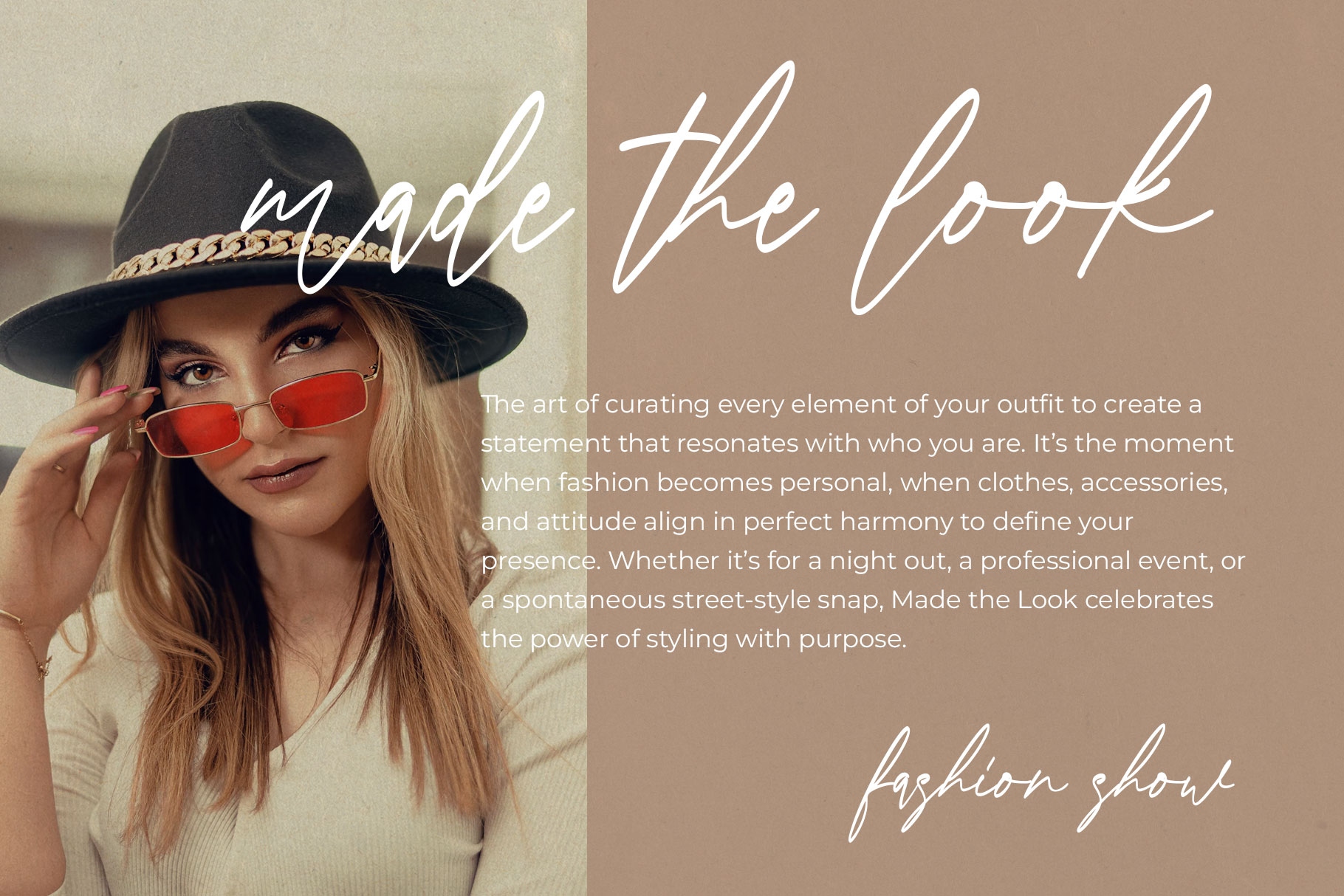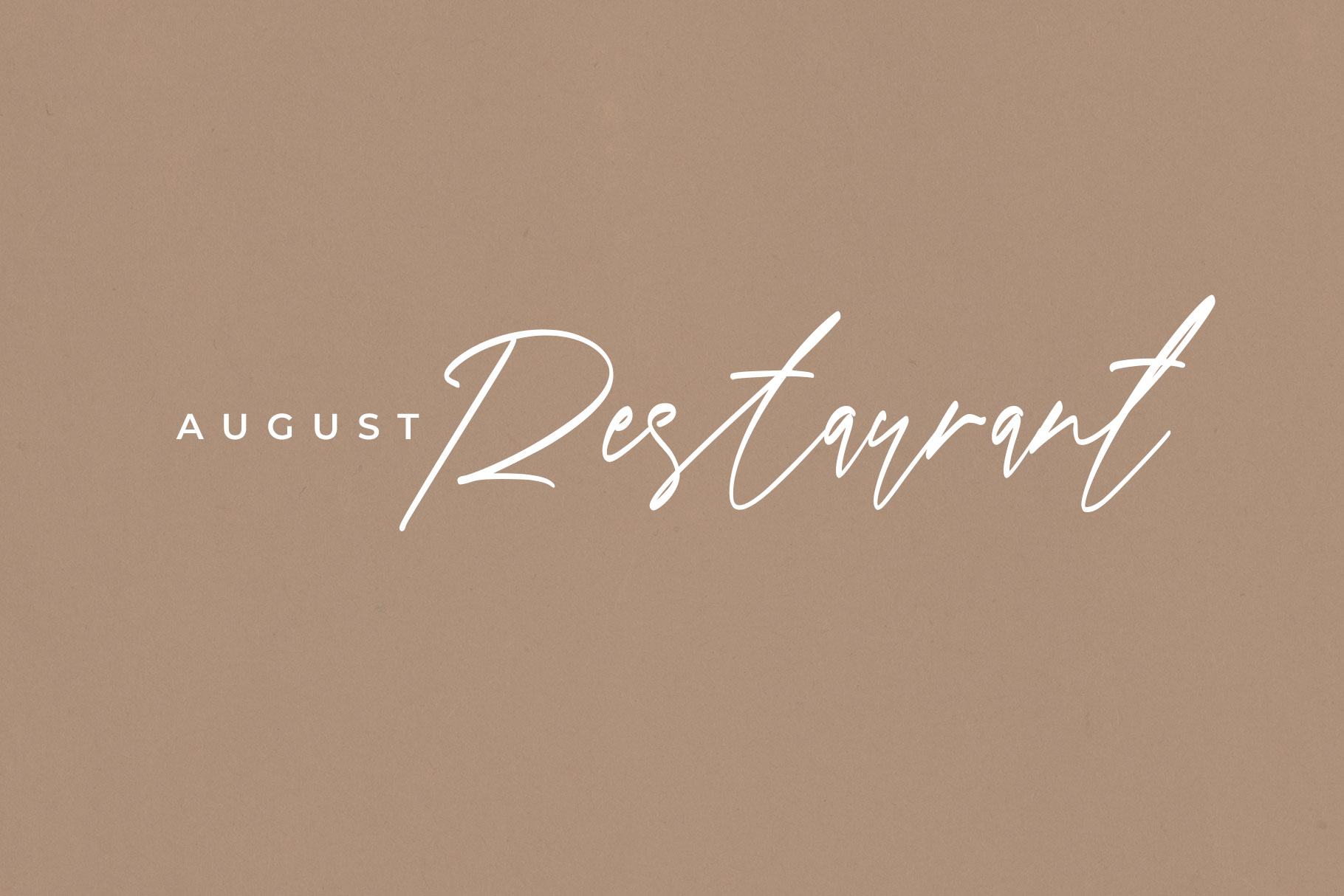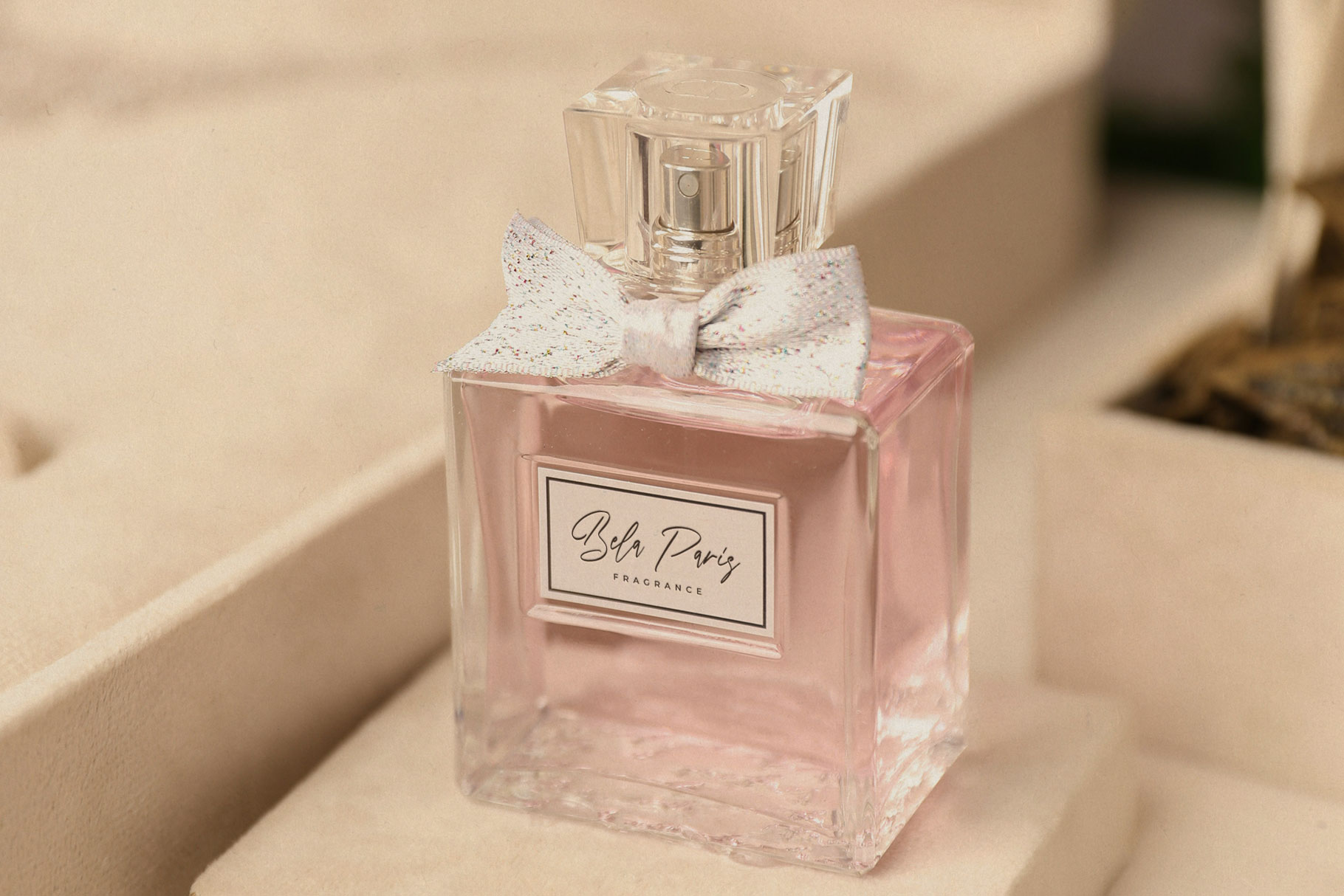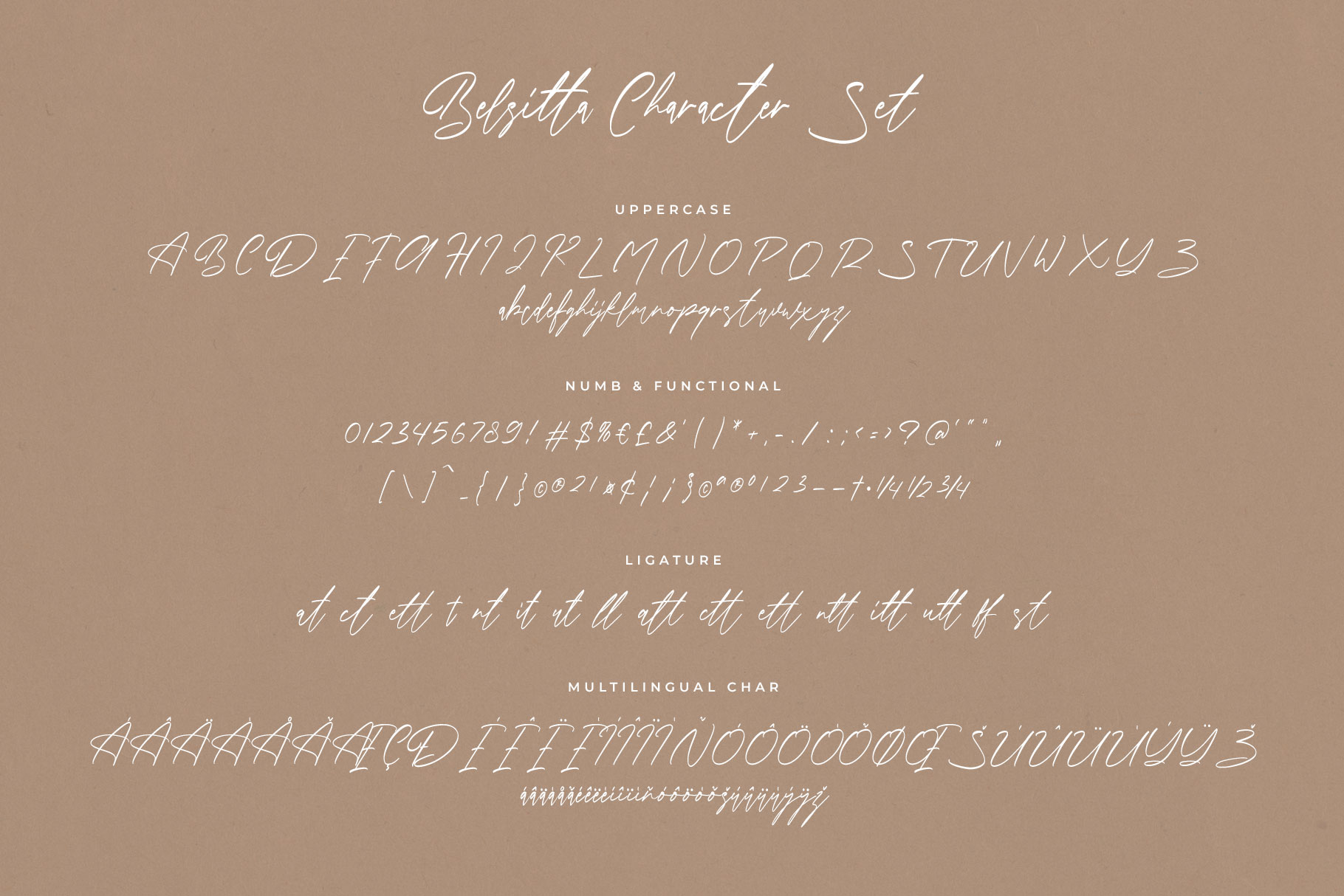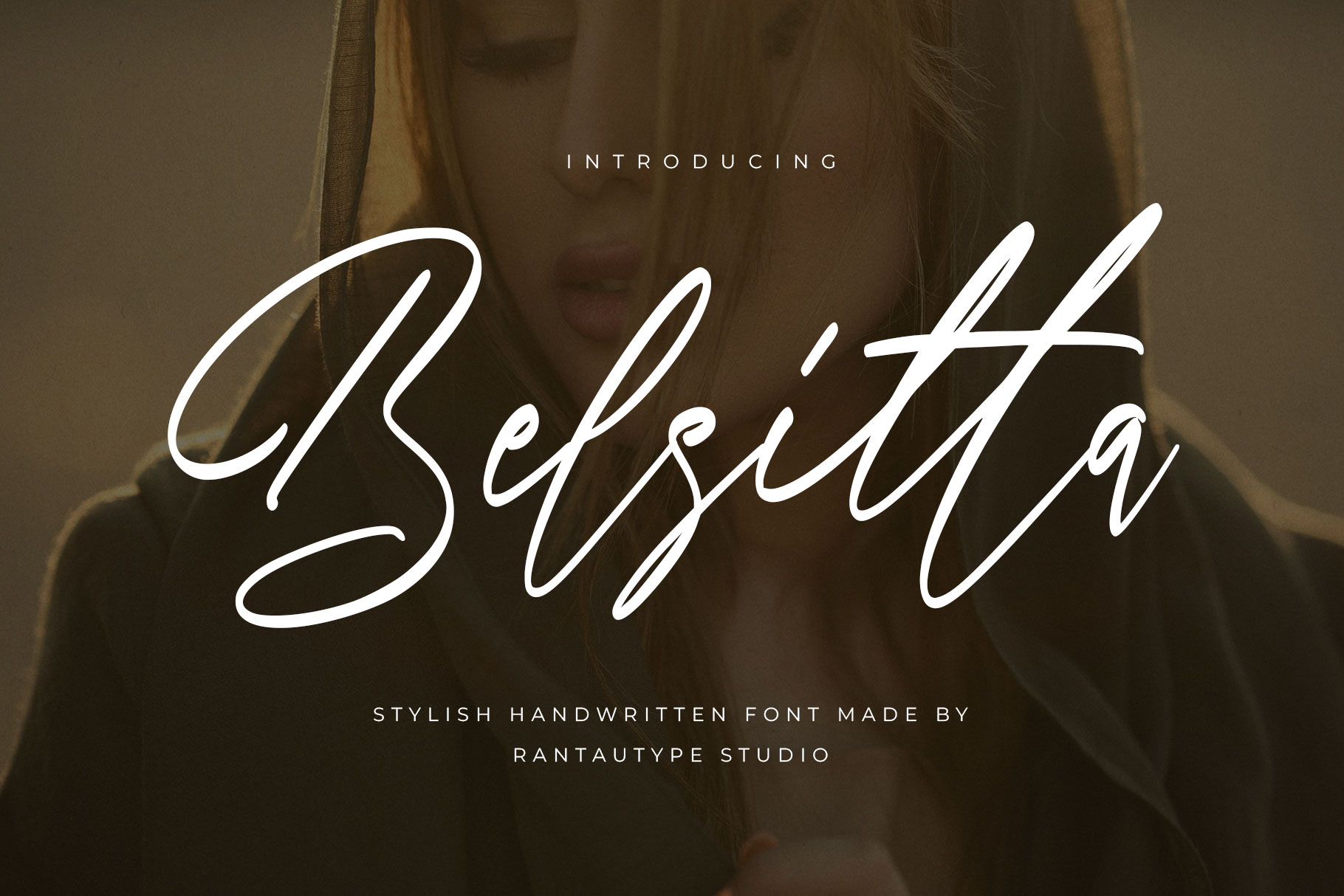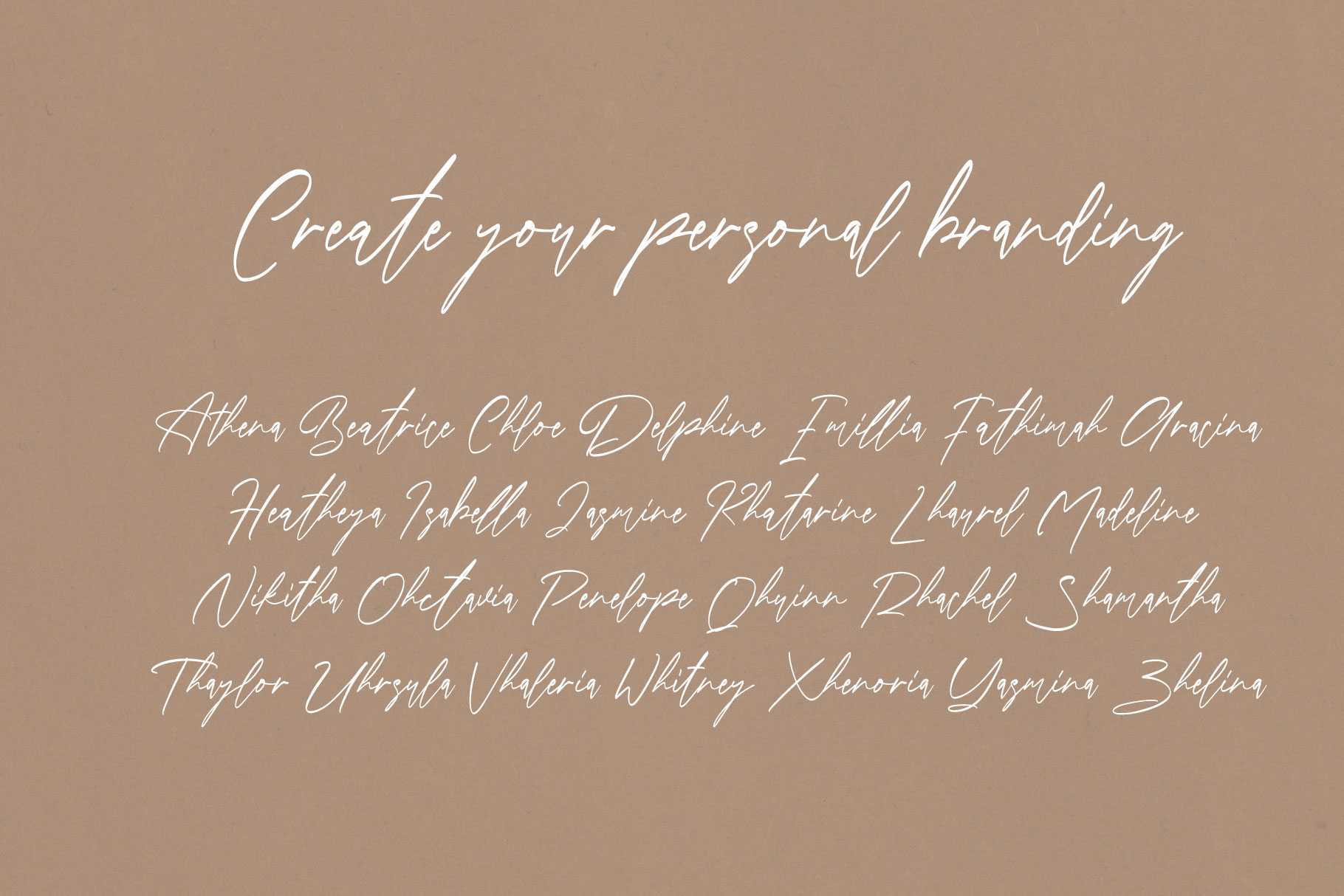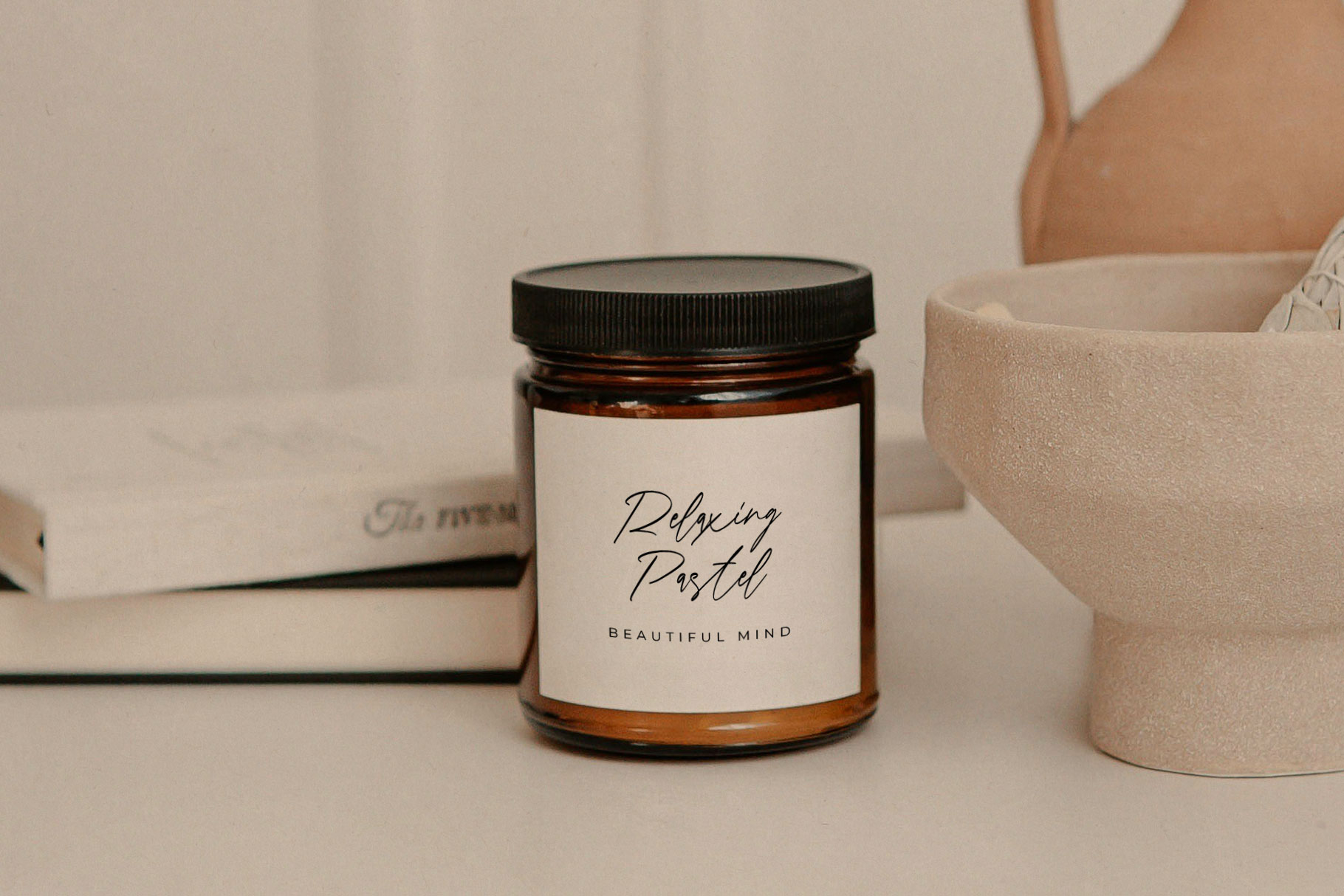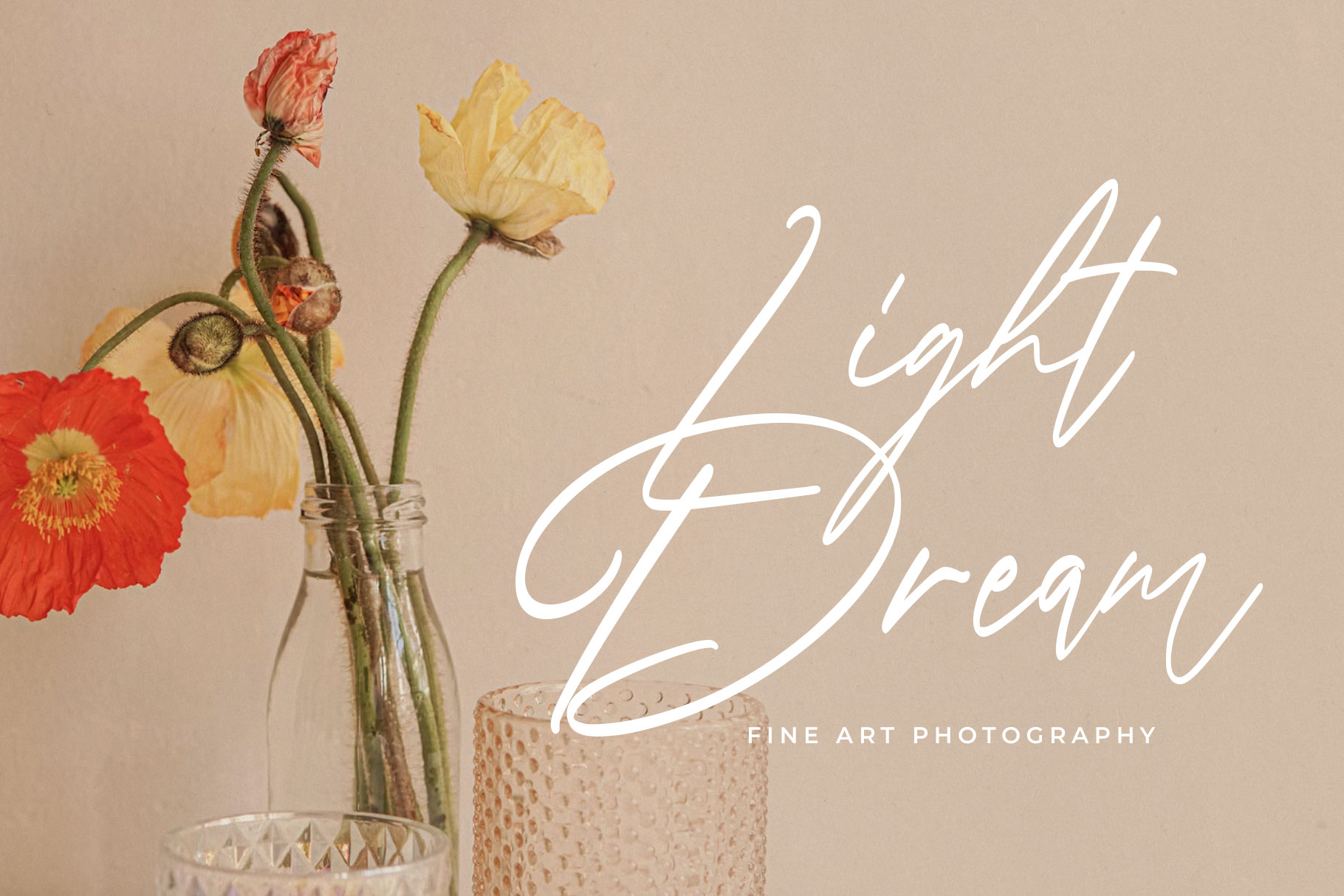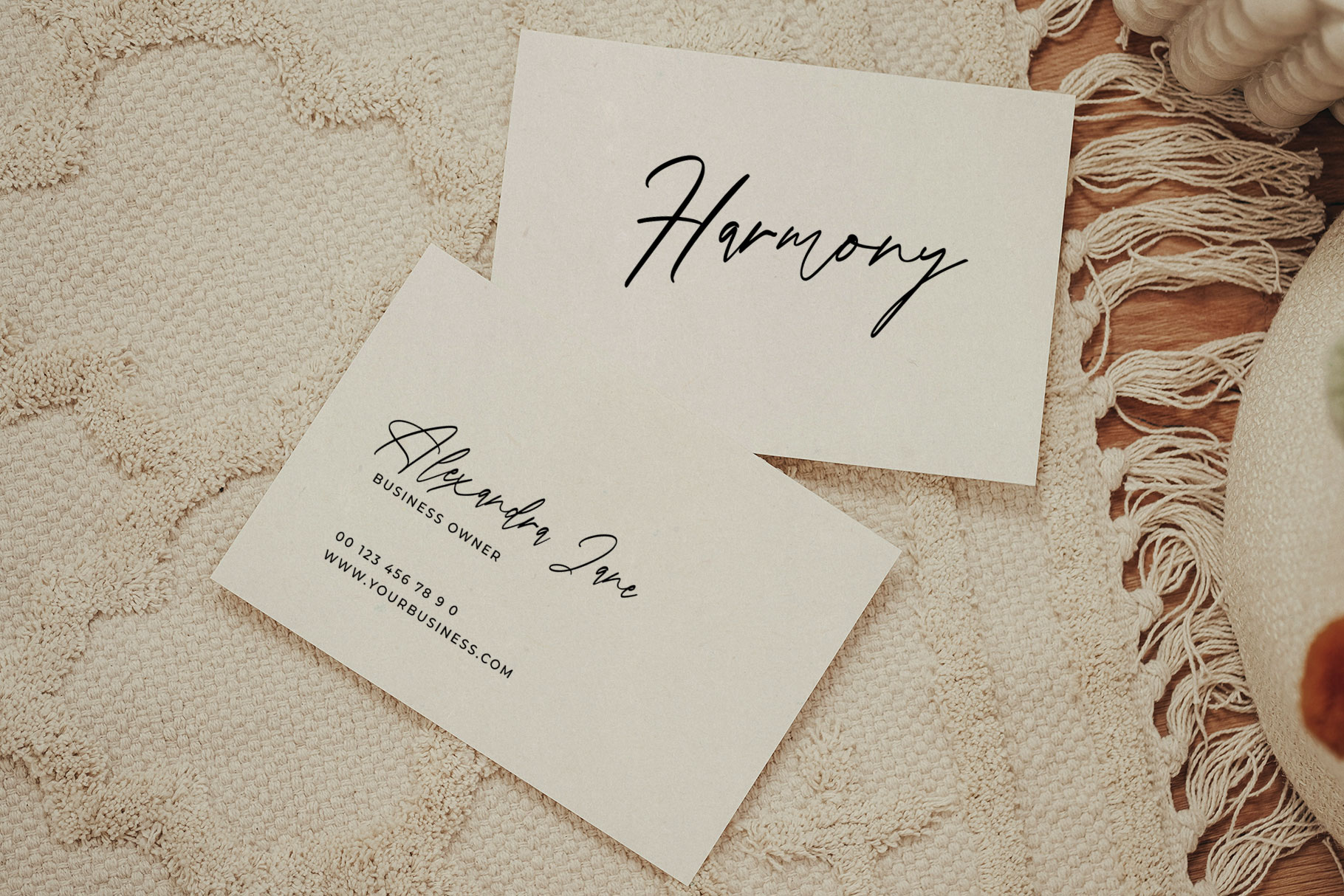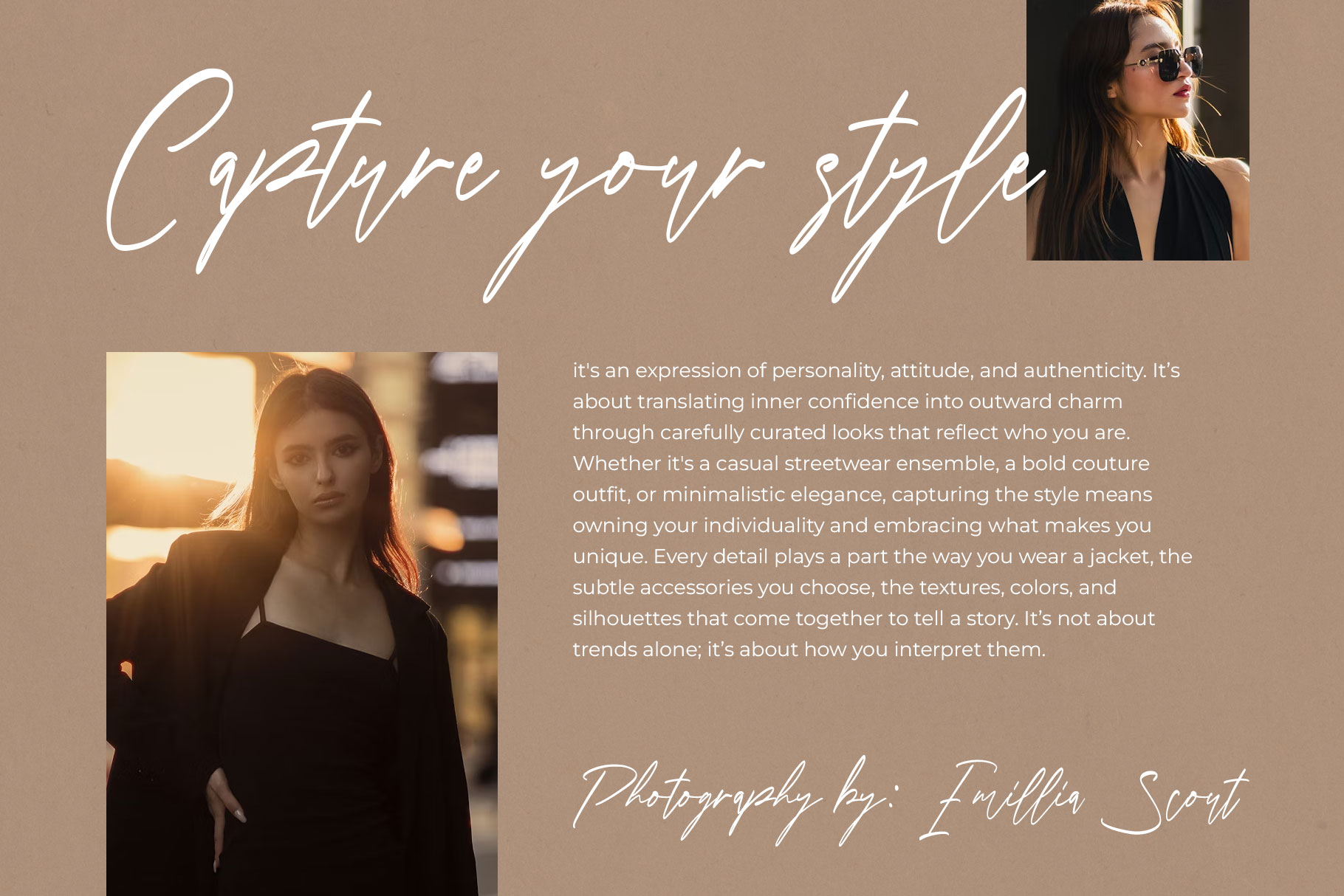
Belsitta Stylish Handwritten Font
Belsitta is stylish handwritten font with modern look. Belsitta is a perfectly choice for any creative endeavor, creating, modern, lifestyle design such as logotype, title, cover, branding, invitations, wedding designs, display and magazine, social media posts, advertisements, printed quotes, product packaging, corporate brand, product designs, labels, photography, watermarks, special events and any other project with elegant touch.